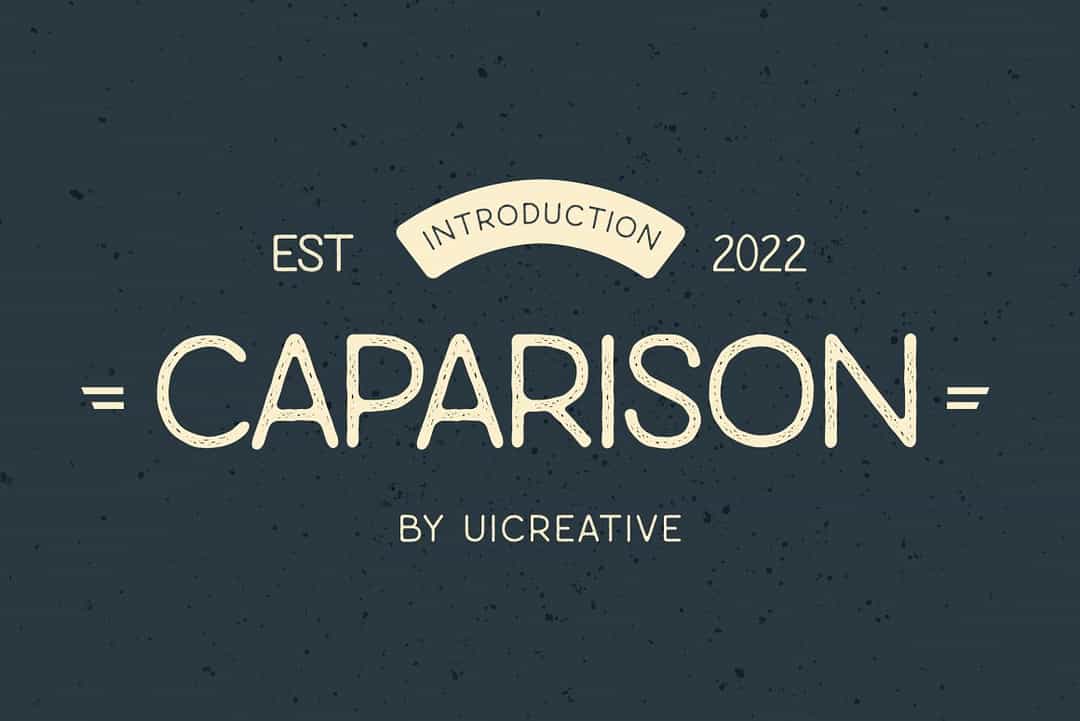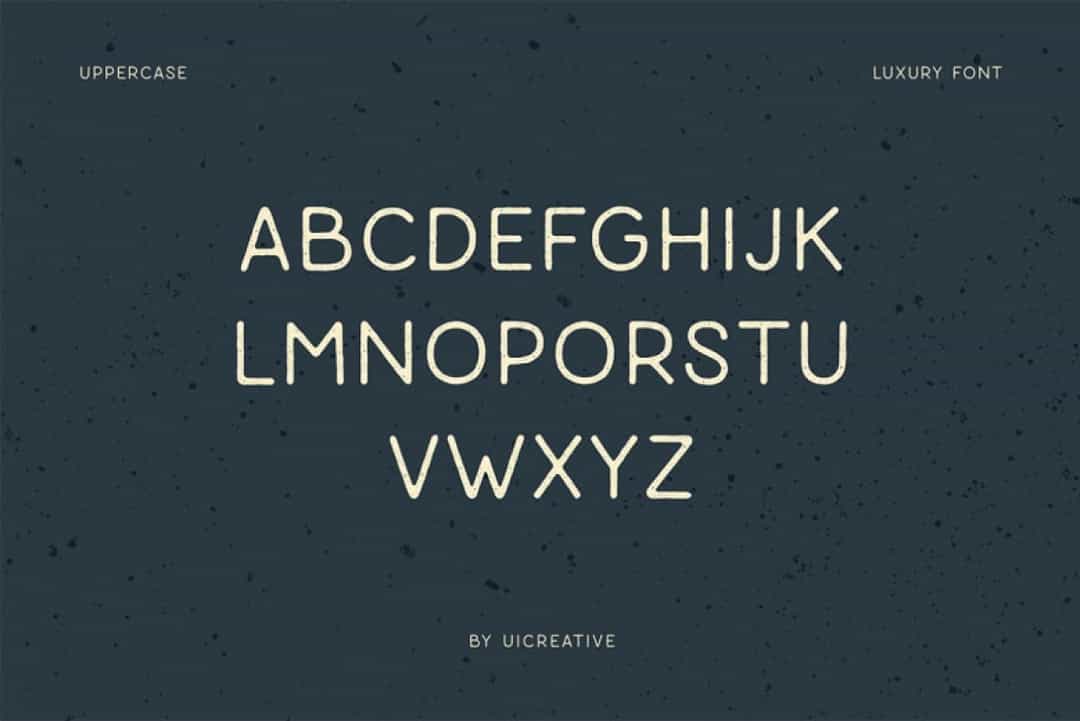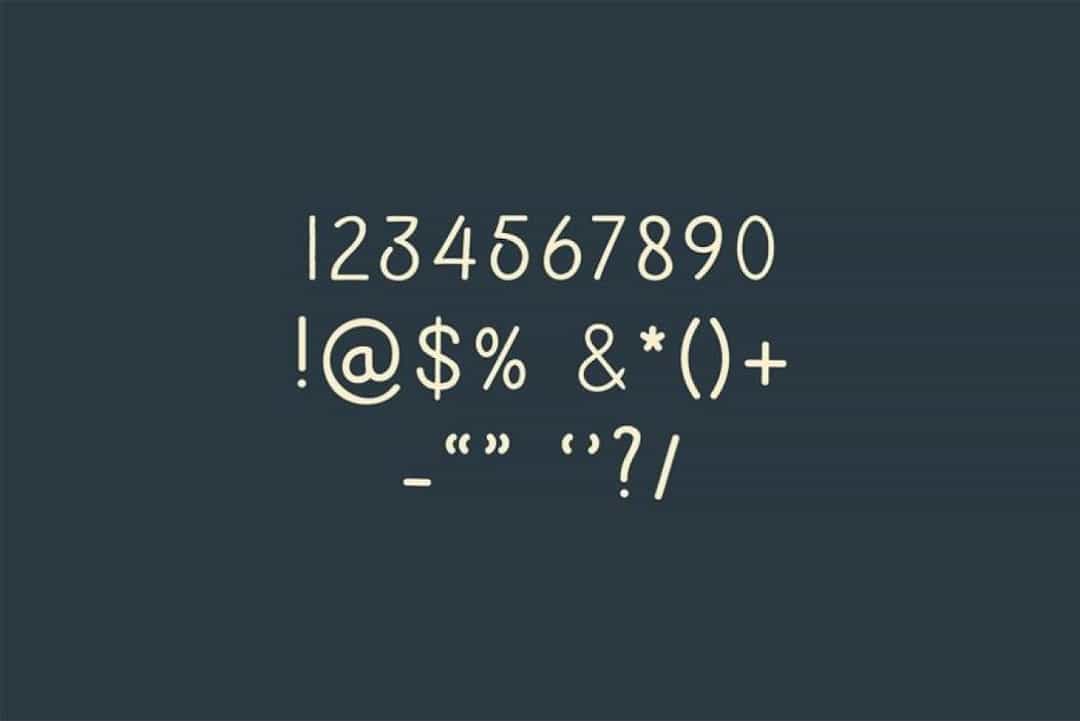
Caparison is a vintage modern display typeface that exudes elegance, classiness and contemporary appeal. This typeface makes an excellent choice for many designs including stationary, signatures, logos wedding, typography quotes magazine or book covers, headers for websites and branding clothing packaging branding and many others.